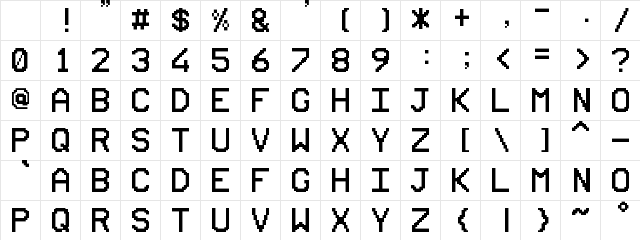
UAV OSD Mono uses fixed-width spacing throughout, giving it the structured, systematic character associated with coding environments and technical documentation.
Pro Tip: Use UAV OSD Mono with slightly increased line-height for extended reading - fixed-width spacing can feel dense in longer passages without extra breathing room.